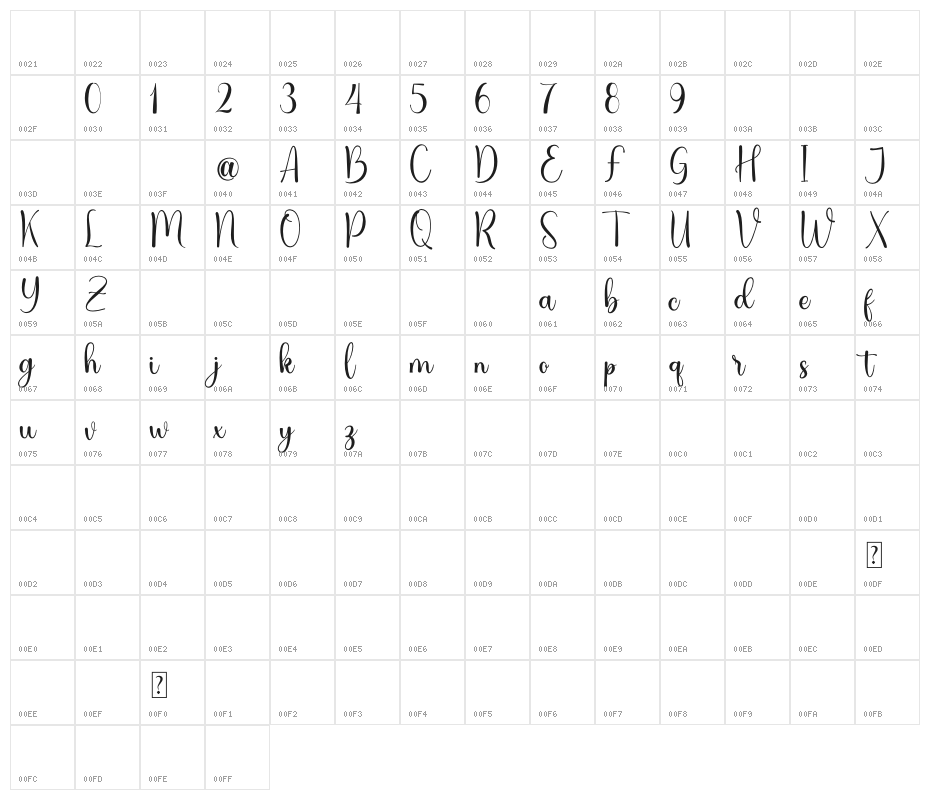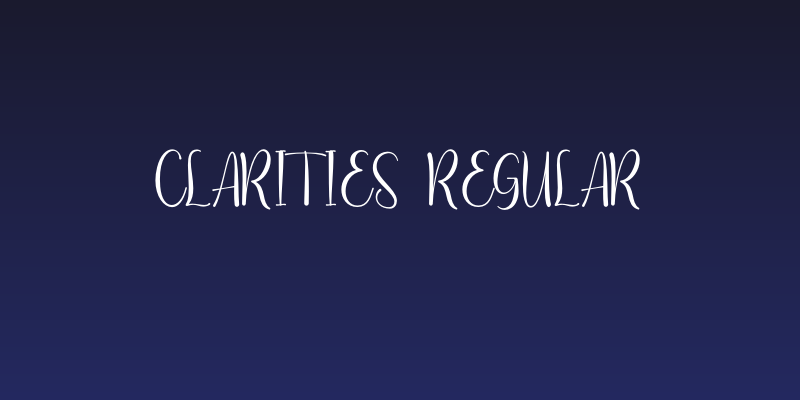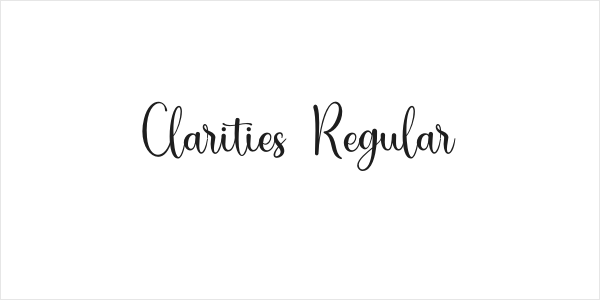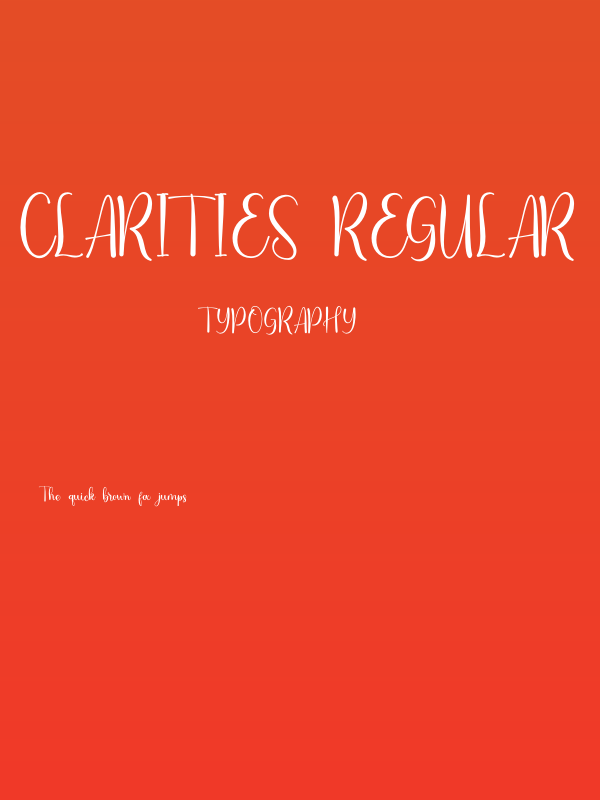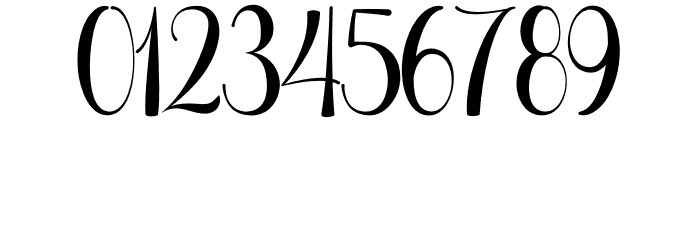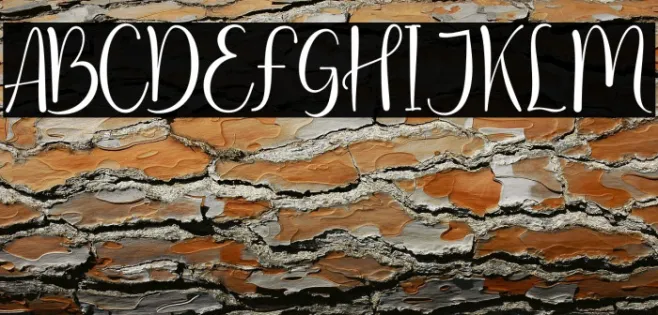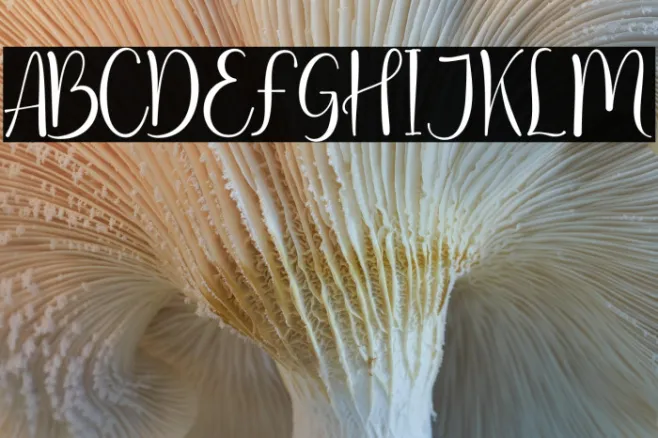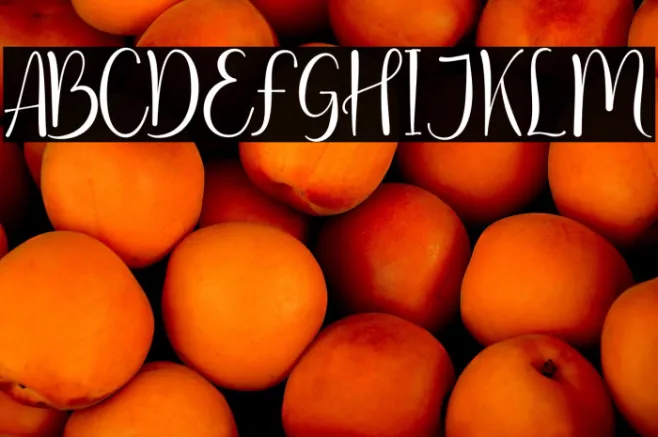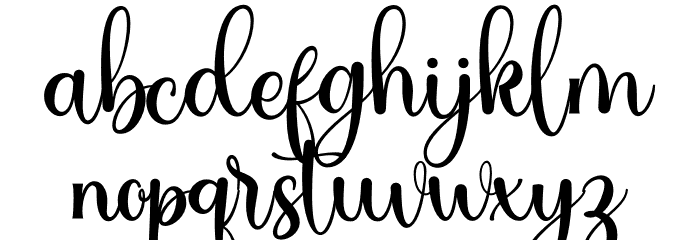
Clarities Regular Font
Clarities Regular Description
This font features a playful and elegant script style, characterized by its flowing, cursive letterforms. The uppercase letters are tall and slender, with a slight slant that adds a dynamic feel. The lowercase letters are more rounded and connected, creating a harmonious and fluid appearance. The numbers maintain the same graceful style, with a consistent stroke width that ensures readability. The overall design is both sophisticated and approachable, making it suitable for a variety of creative applications.
| Proposed Projects | Ideal for wedding invitations, greeting cards, branding projects, and social media graphics. |